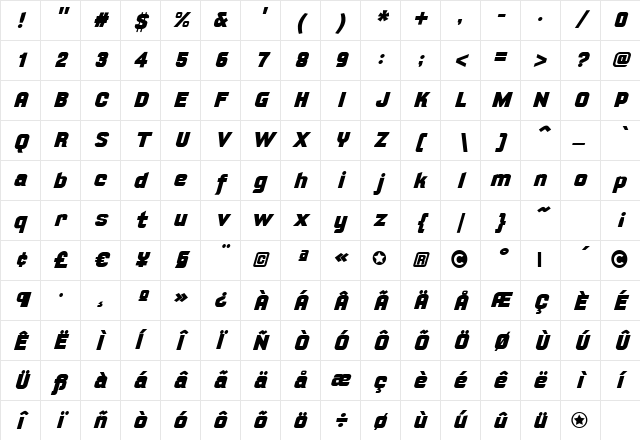
Complete Yearling Italic glyph index. Displaying only characters natively supported by Yearling Italic font.
Yearling is a composed and adaptable typeface that performs quietly and consistently across a wide range of design contexts. The slanted form adds forward momentum and visual energy.